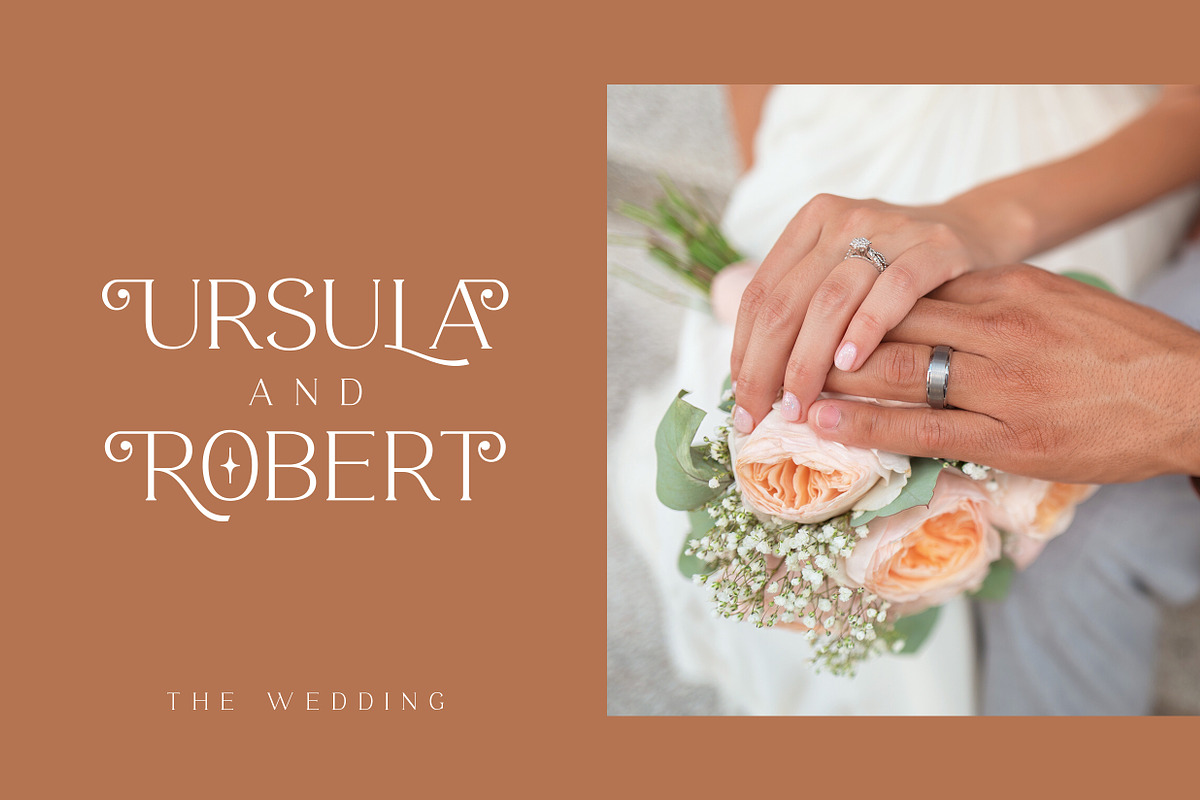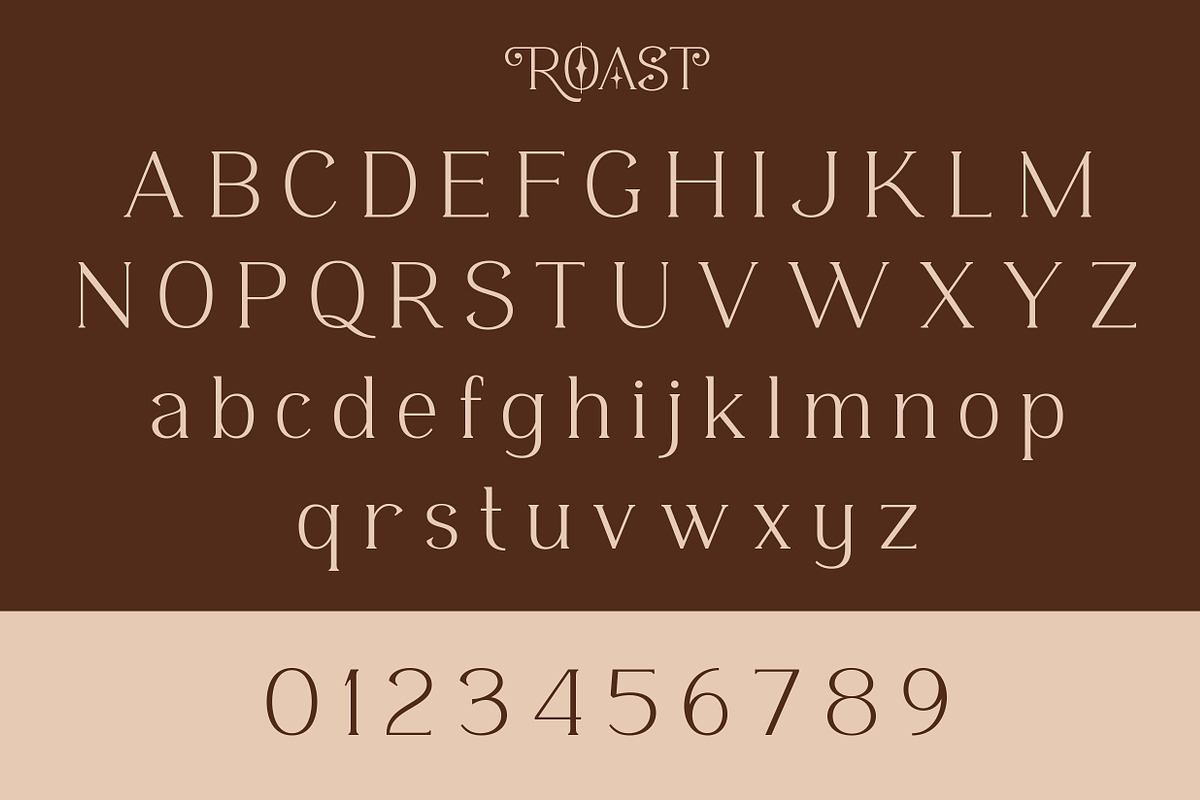
ROAST - Decorative Display Serif
You can be wild and bold in an elegant way. And serif typeface can be very wide and versatile without losing the characteristic. That's where the ROAST came from. An elegant serif typeface with a lot of special alternate letters in every single letters. Elevate your elegant vibes with pushing the style in edgy way instantly with this font.
- Uppercase & Lowercase letters
- Stylistic Alternate Letters
- Multilanguage Support